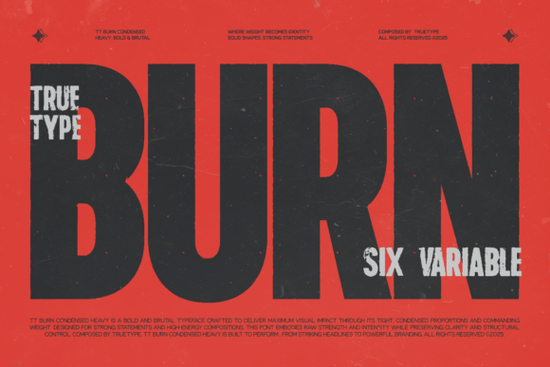
If you're looking for a clean, modern condensed sans serif that holds up well in tight spaces like social media banners, product packaging, or logo lockups you’ll want to take a closer look at TRT Burn Font. It’s not just narrow for the sake of it; every character is carefully shaped for legibility at small sizes and impact at large ones. Designers working on branding systems, crafters preparing print-on-demand files, or small business owners building their own marketing assets often hit a wall with fonts that either sprawl too wide or lose clarity when squeezed. TRT Burn solves that quietly and reliably.
When does TRT Burn work best?
This font shines where space is limited but presence matters: storefront signage, app UI headers, t-shirt front prints, Instagram story text overlays, and minimalist packaging labels. Its vertical proportions give it a confident stance without needing extra width so your headline stays readable even in a 300-pixel-wide ad banner. Unlike some ultra-condensed fonts that sacrifice rhythm or spacing, TRT Burn keeps letterforms balanced and open. That means fewer kerning tweaks and smoother workflow whether you’re using it in Canva, Adobe Illustrator, or Cricut Design Space.
How does it compare to other modern sans serifs?
Compared to more relaxed options like Nura Font, TRT Burn leans bolder and tighter ideal when you need hierarchy and authority, not softness. It’s less decorative than script or display fonts, but more intentional than generic system fonts. Think of it as the “go-to condensed workhorse” rather than a one-off stylistic choice. You’ll find it especially useful alongside fonts like TRT Burn Font for layered layouts say, pairing Burn for headlines with Nura for body copy in a brand style guide.
What kinds of projects benefit most?
- Branding & identity: Logos, wordmarks, and brand guidelines where consistency across digital and print matters.
- Print-on-demand: T-shirt designs, mugs, tote bags especially when text needs to stay legible at smaller print sizes.
- Digital interfaces: App buttons, dashboard headers, or landing page hero text that must scale cleanly across devices.
- Packaging & labels: Product boxes, jar stickers, or hang tags where horizontal space is tight but tone still needs to feel current and professional.
- Editorial & posters: Magazine covers, event flyers, or gallery announcements where bold typography drives attention without overwhelming imagery.
Because TRT Burn includes full Latin character sets, basic OpenType features (like standard ligatures and alternate numerals), and consistent hinting, it renders well both on screen and in high-res print output. That’s helpful whether you’re exporting a PDF for a local print shop or uploading a PNG for an Etsy listing.
Is it beginner-friendly?
If you're already using Nura Font for softer, friendlier applications or exploring other sans serif fonts, condensed typefaces, or modern branding fonts adding TRT Burn gives you contrast and flexibility. It’s not meant to replace your go-to text font, but to fill a specific gap: strong, compact, and clear.
- Do I regularly design for tight horizontal spaces (social posts, labels, logos)?